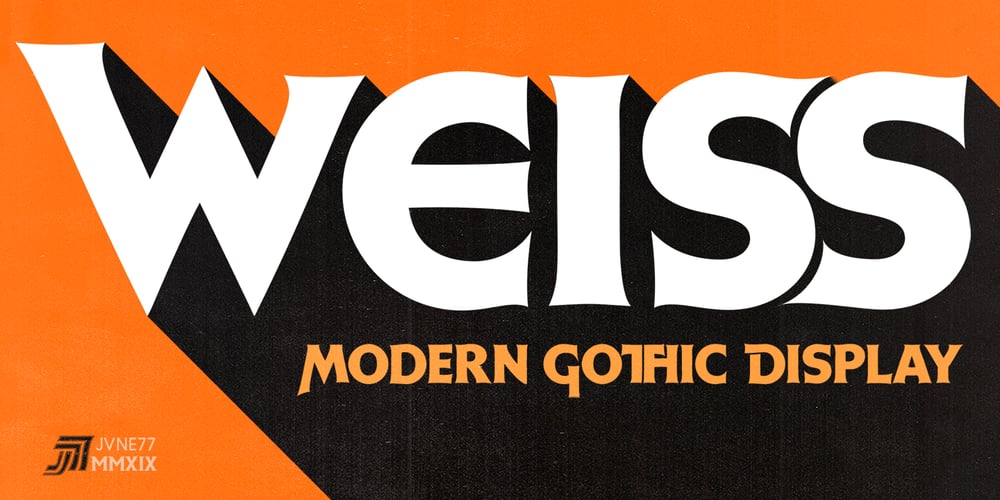
Weiss Modern Gothic Font Family was designed by Emil Rudolf Weiß, Johnny Feron and published by Jvne77 Studio. Weiss Modern Gothic contains 1 styles and family package options. Weiss Modern Gothic is the first digital re-creation with a lot of improvements of a late seventies well-known edited typeface by Bauer. At the time known as Weiss Initials Extra Bold or Weiß Modern Gothik, the design was inspired by the famous Weiß Initialen N°2 drawn by Emil Rudolf Weiß (1875-1942); also father of the non-less famous “Neuland” typeface. Strangely, this beauty seemed abandoned while sister-flared faces like Friz Quadrata, Flange, Serif Gothic or Romic are in a new wave of revival. Hoping this one will not again disappear… Happy new life.